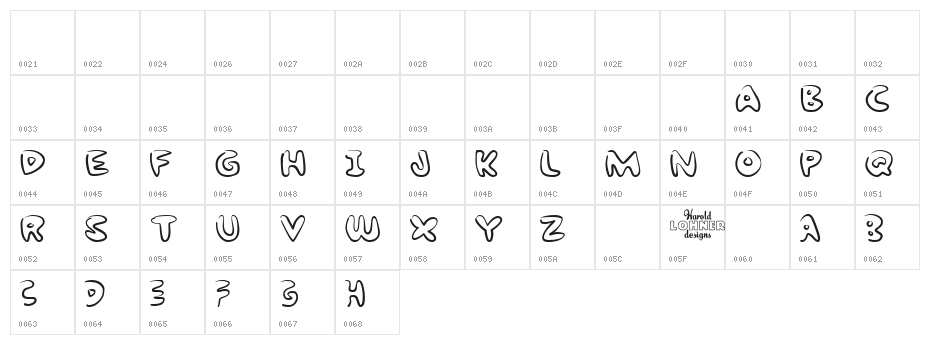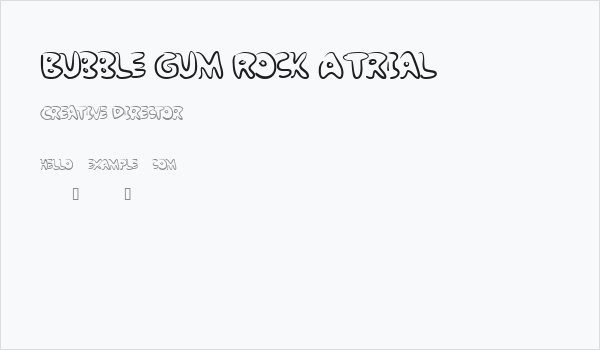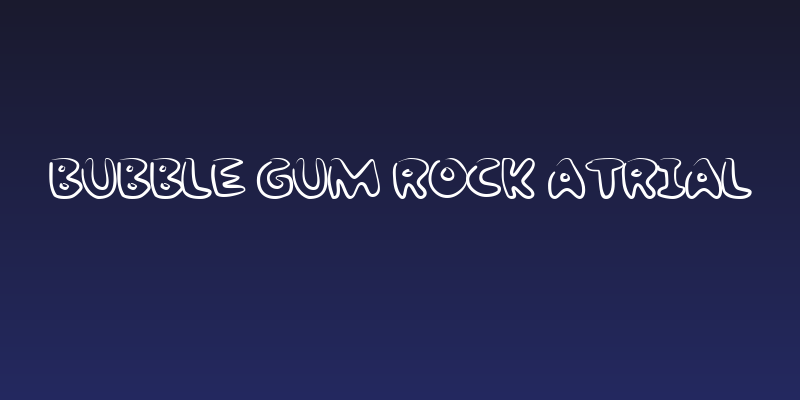
Bubble Gum Rock ATrial Font
Bubble Gum Rock ATrial Description
This playful and whimsical font features bold, rounded characters with a bubbly appearance, reminiscent of inflated balloons or bubble gum. The letters have a consistent thickness, creating a cohesive and uniform look. The style is informal and fun, making it ideal for projects that require a lighthearted and cheerful touch. The font's design is characterized by its smooth curves and exaggerated forms, which add a sense of movement and energy. It is particularly suitable for children's materials, party invitations, or any creative work that aims to convey joy and playfulness.
| Proposed Projects | Ideal for children's books, party invitations, playful branding, and creative posters. |